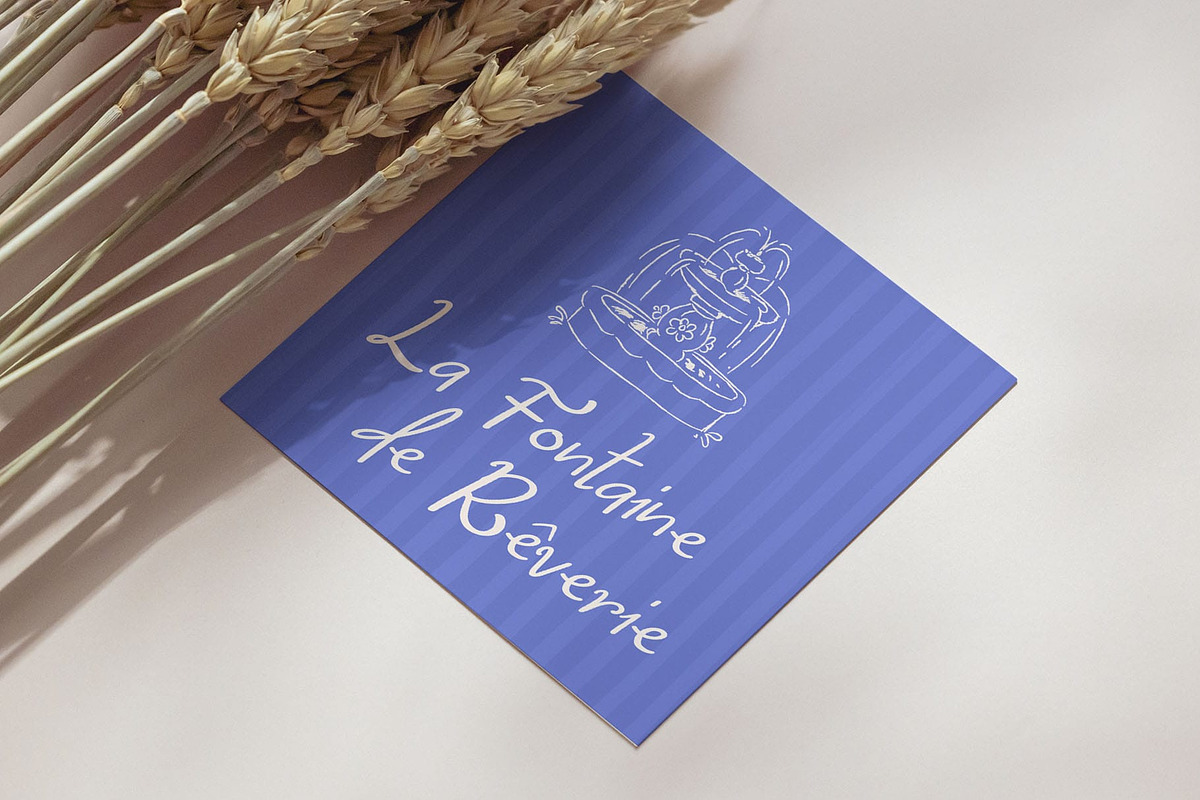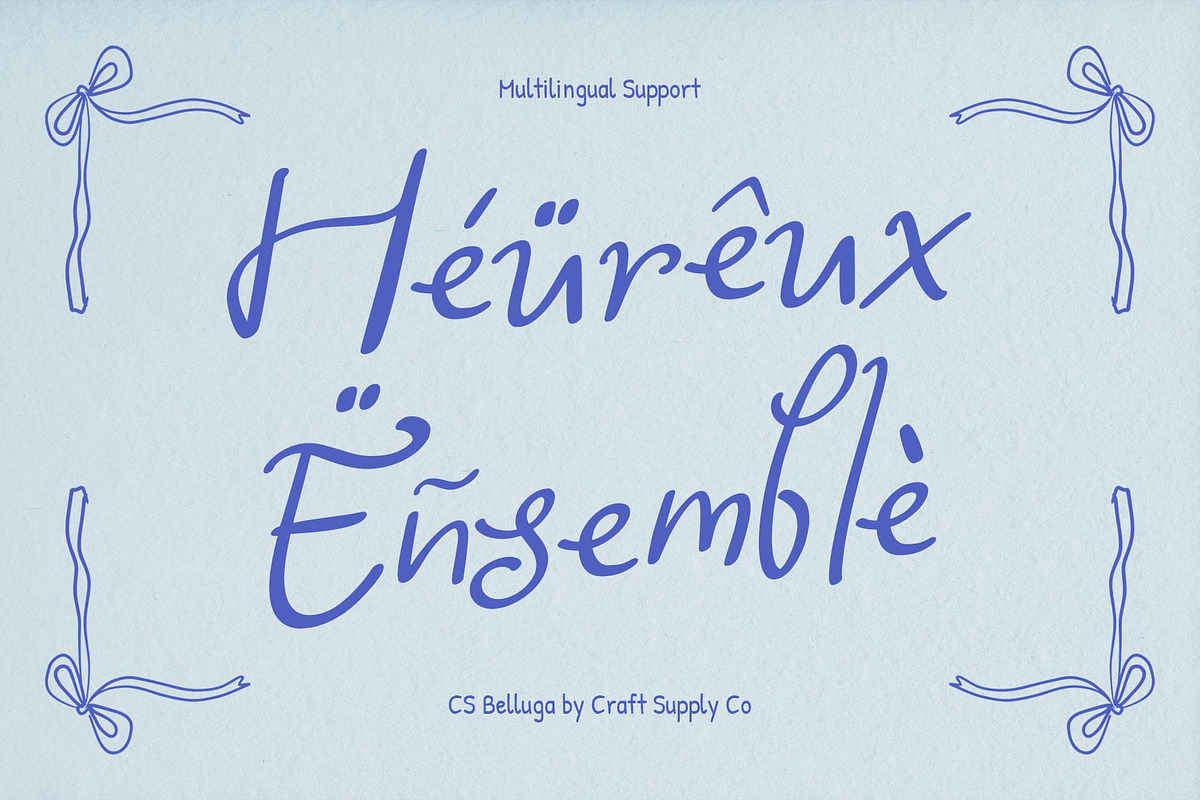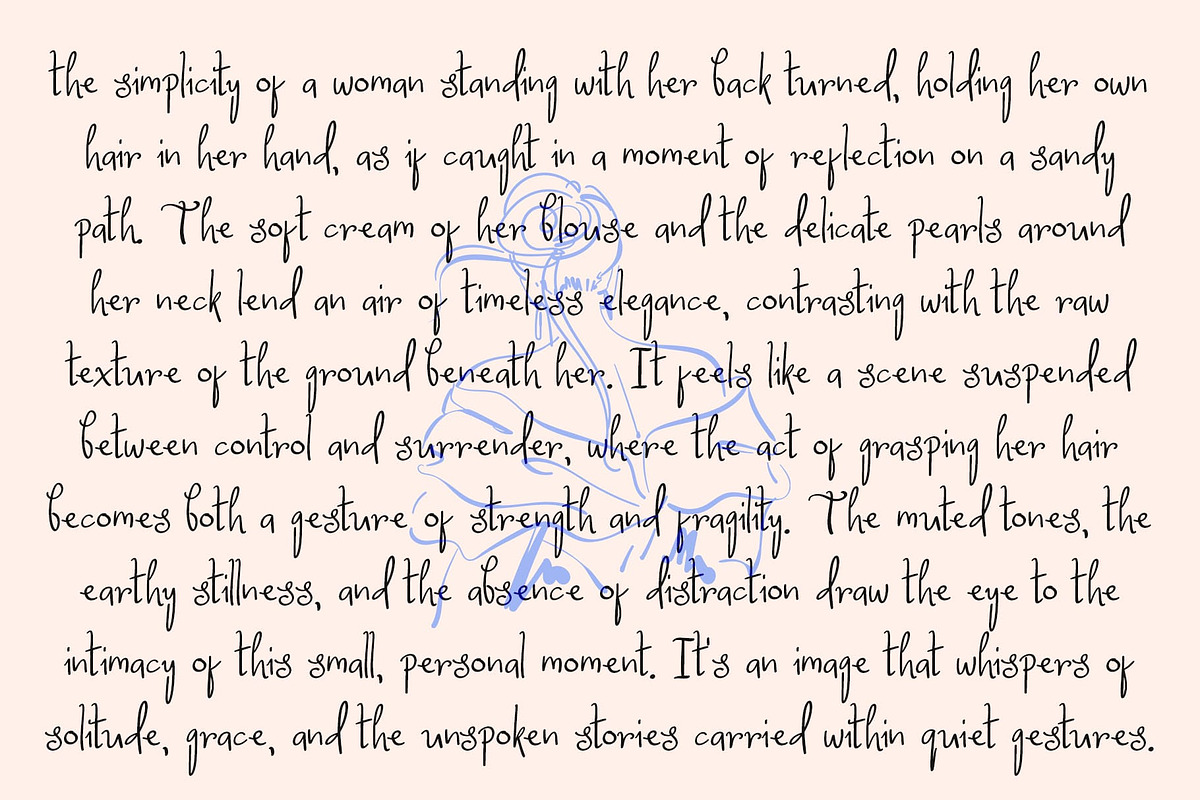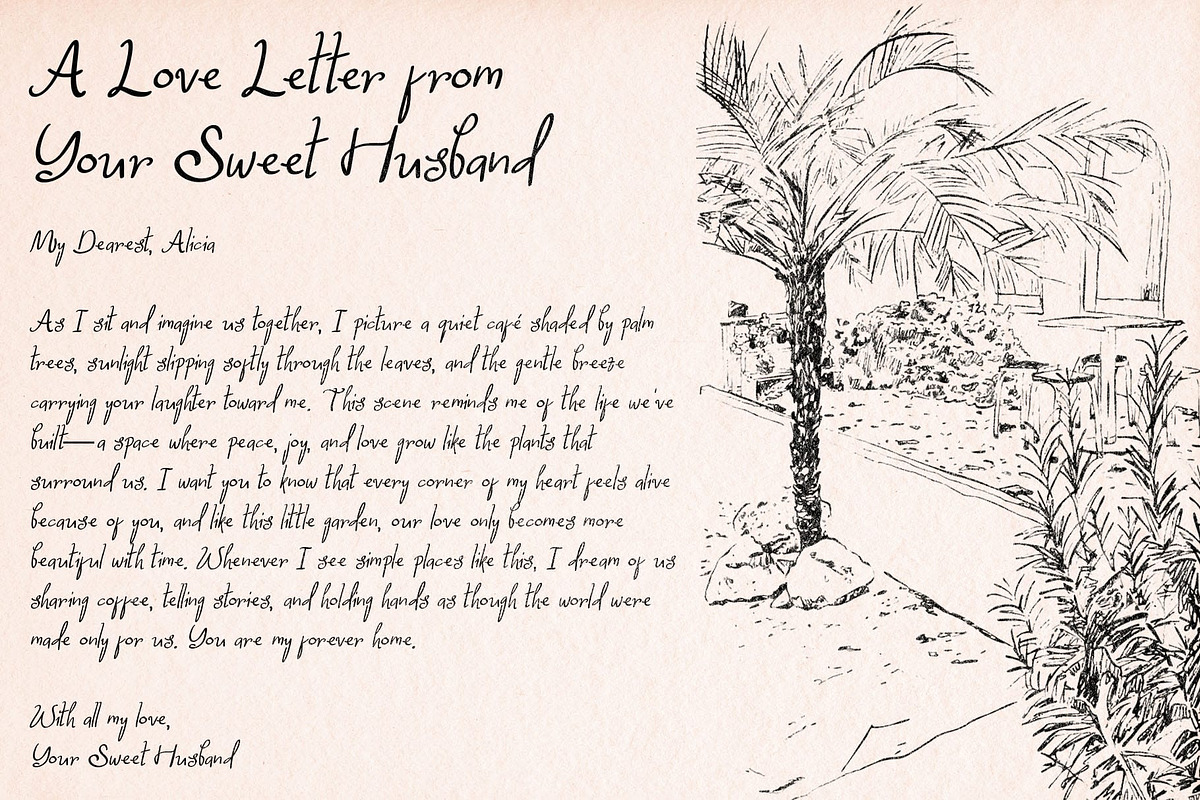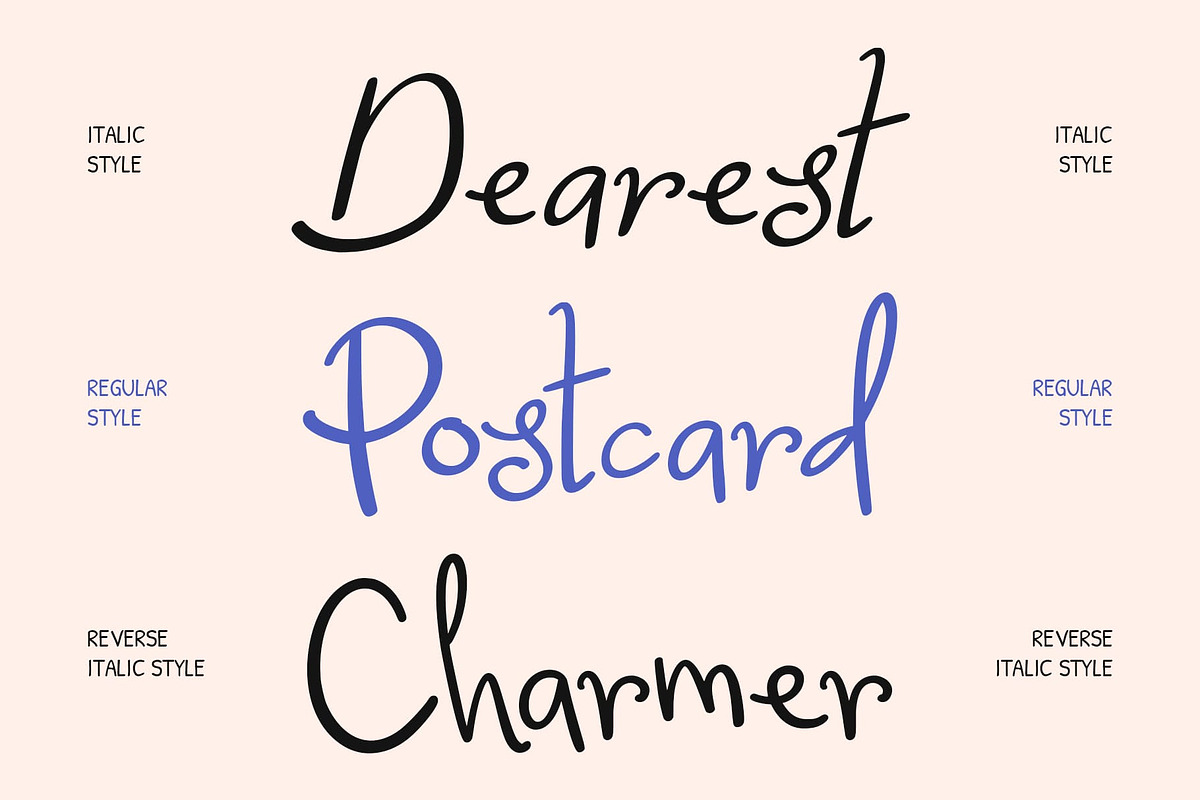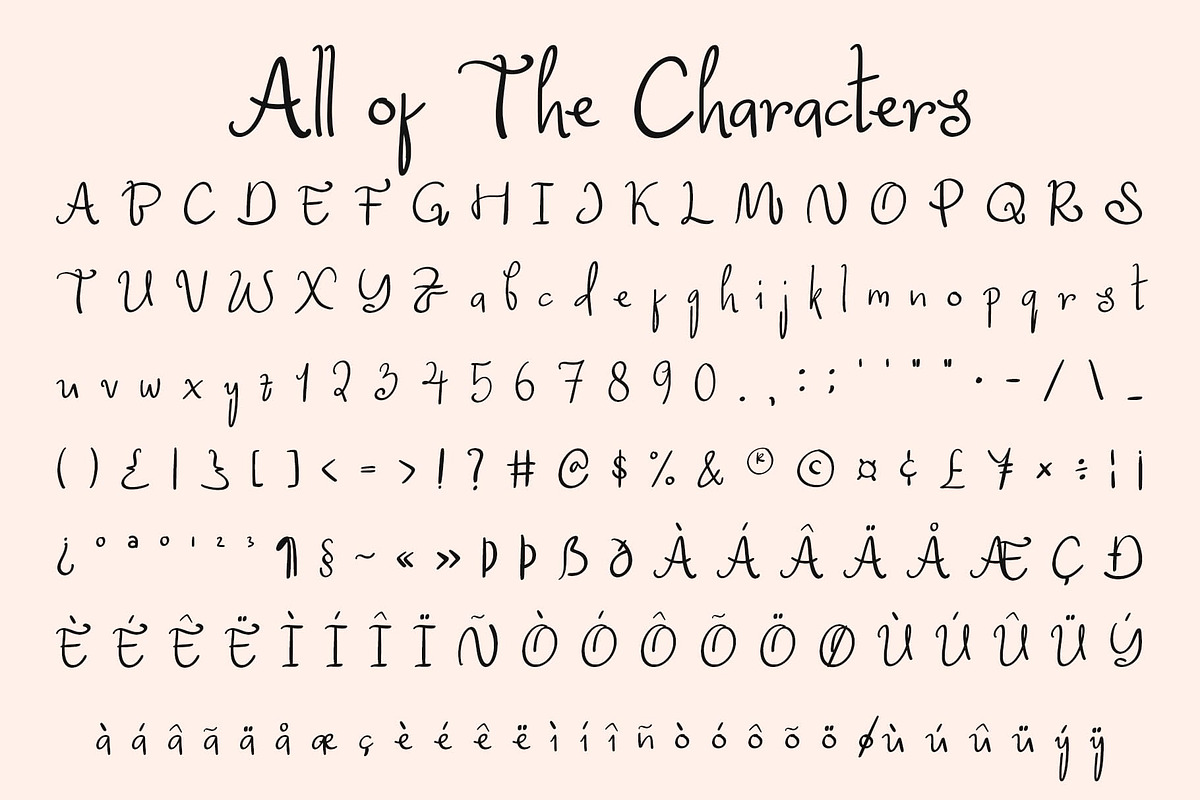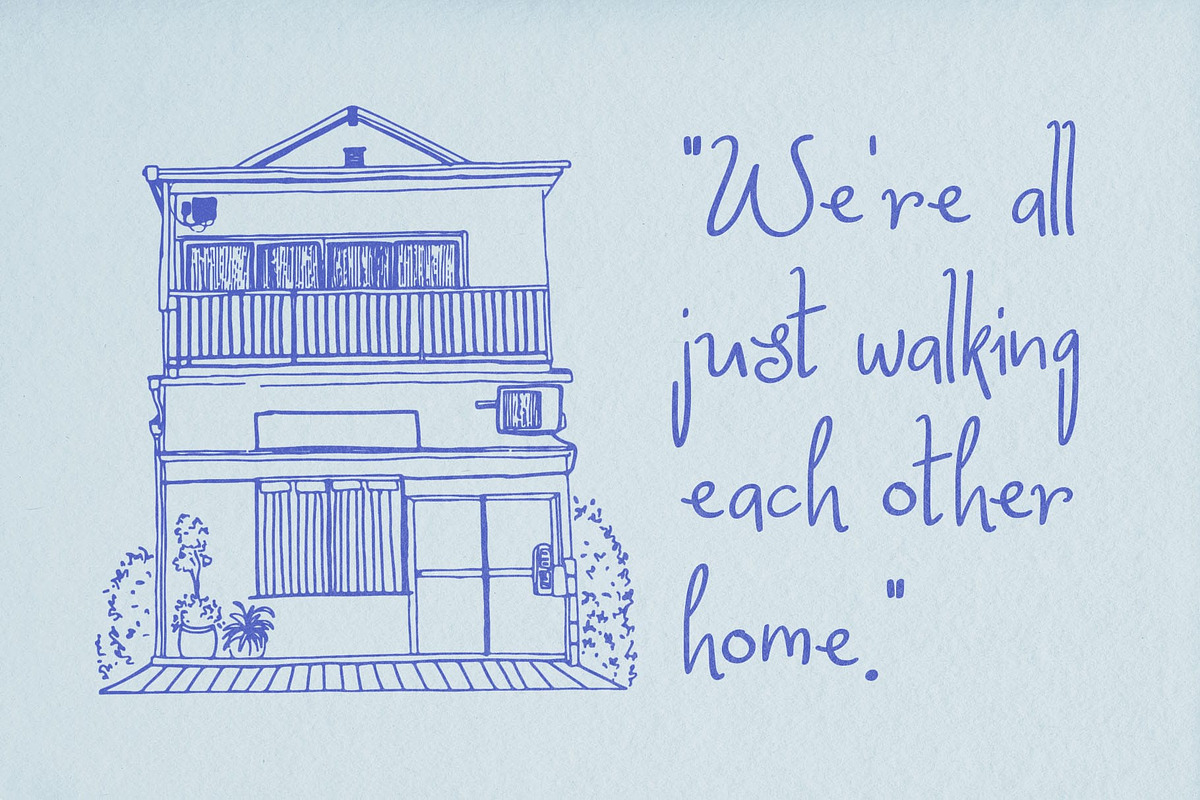
CS Belluga – Handwritten Whimsy Font
CS Belluga: Whimsical Beauty with a Playful Heart
Handwritten Whimsy Font with Graceful Movement This is a beautiful handwritten whimsy font that dances with playful curves and imaginative forms. Each letter flows with personality and motion, creating a sense of joy and spontaneity. Designed to capture the spirit of creativity and romance, adds warmth, charm, and a touch of fantasy to any design it graces.
Playful Curves for Delightful Expression Every stroke in this font is crafted to convey motion and liveliness. The flowing lines and gentle swirls create a handwritten rhythm that feels both joyful and personal. Its playful forms make it perfect for projects that want to express happiness, affection, or celebration with an inviting and graceful touch.
Whimsical Character for Creative Designs This font stands out through its imaginative, slightly whimsical letterforms. The combination of organic movement and balanced structure gives it a unique appeal that’s both fun and stylish. Whether used for love letters, wedding invitations, or beauty posters.
Perfect for Romantic and Cheerful Creations From wedding stationery to party invitations and heartfelt quotes, brings a sense of joy and artistry to every layout. Its blend of beauty and playfulness makes it a versatile choice for designers seeking a font that feels personal, lively, and expressive. With this font, every word comes to life with elegance, whimsy, and delight.